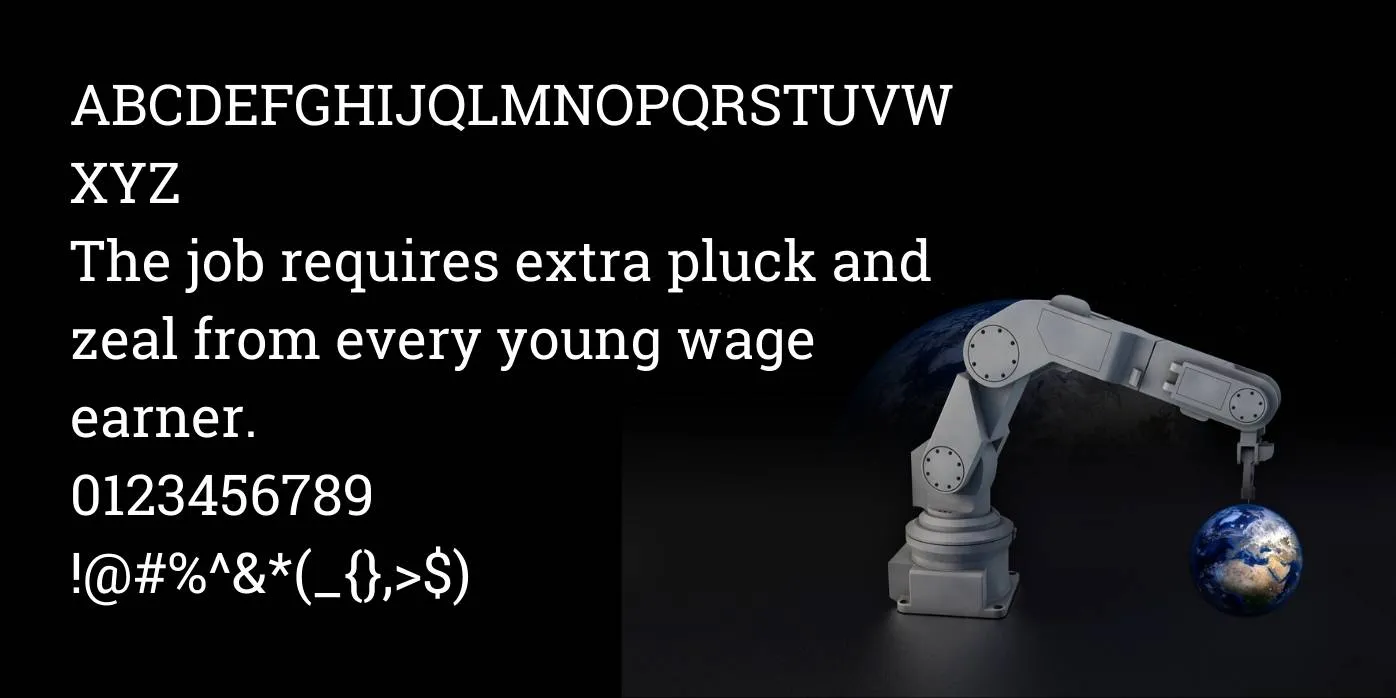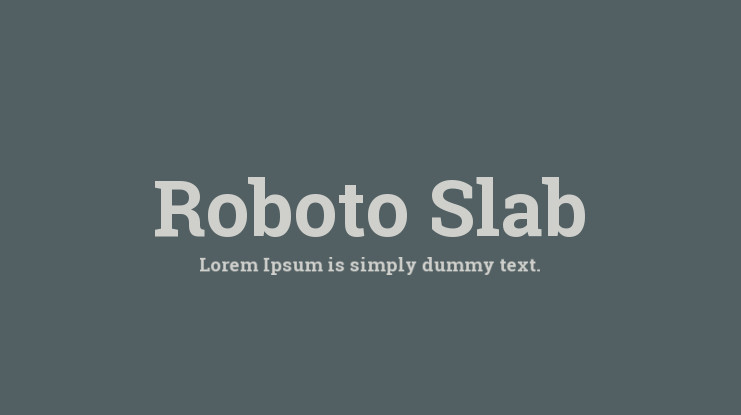
Roboto Slab Font
Roboto Slab Font comes under the category of Slab Serif font. This is used in Adobe and also for pairing function it is similar to roboto font. The designer of this typeface is Christian Robertson and it is free for commercial use. This typeface has an incredibly proficient style that includes Uppercase and Lowercase, Letters, general punctuation, Numbers and Numerals, certain glyphs, and compulsory symbols also.
The font’s characters are very professional for the Heading or Titling of your documents. The typeface has a beautiful pairing personality with another typeface. It can support many international languages and accents for abroad users. In case you don’t want to download this typeface, then you may generate it by an online generator tool.
Usage The characters of this typeface are very professional and unique. They seem to like they were written by a professional typewriter and it can be very useful for your paperwork and other printing projects. This is the original Google font that you can see by visiting their website. It is very great for making different designs in adobe applications and in CSS (Cascading Style Sheet).
It is also useful for Canva (an online designing application). The font has many styles therefore it can fit on both print and digital works. You check out the roboto condensed font for pairing. This typeface is common for your daily assignment and note, you can manipulate it in your documents as heading or titling or body text as well.
The typeface is designed especially for multi-devices and multi-applications. It is not only a web-safe font but also sure working validly if you have a custom browsing setting. Is Roboto Slab a Google Font? This typeface has beautiful styles and weights with a large family.
It belongs to google fonts due to its appearance on the google website.